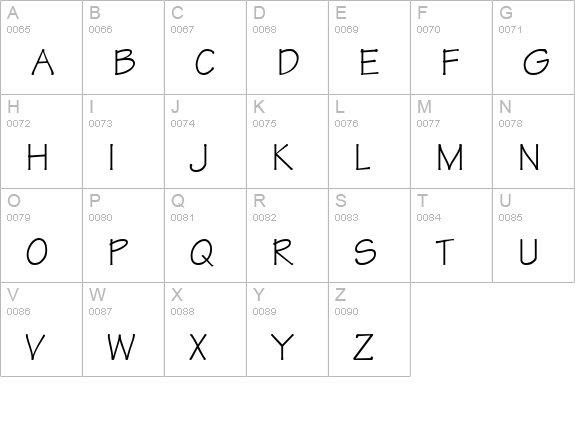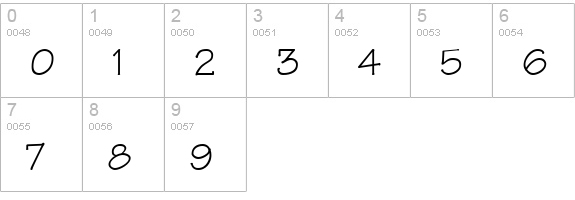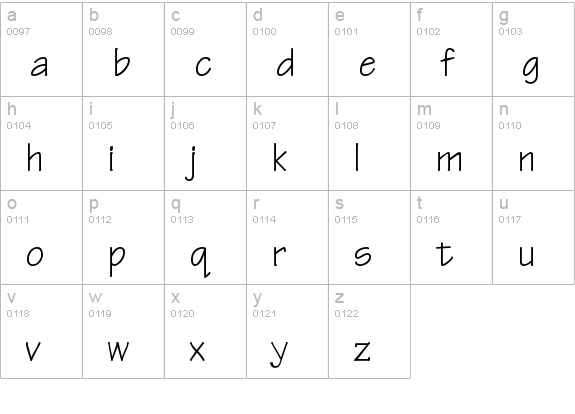
Manual SSi Font Details
Introducing Manual SSi, a strikingly elegant font that effortlessly captures the essence of timeless sophistication. With its clean lines and refined curves, this font exudes a sense of professionalism and style that is perfect for a variety of design projects. Manual SSi is meticulously crafted to ensure legibility and readability, making it an ideal choice for both print and digital media. Its versatile nature allows it to seamlessly adapt to any context, whether it be on a website, in a logo, or within a printed publication. What sets Manual SSi apart is not only its aesthetic appeal but also its accessibility. This font is freely available to download at FontsMarket.com, offering you the opportunity to enhance your design projects without any cost. By providing this font for free, we aim to empower designers and creatives to bring their visions to life, regardless of budget constraints. With a wide range of weights and styles, Manual SSi offers endless possibilities for creative expression. From the bold and impactful to the subtle and refined, this font allows you to effortlessly convey your message with clarity and confidence. So why wait? Experience the beauty of Manual SSi and elevate your designs to new heights. Download this remarkable font today at FontsMarket.com and unlock a world of design possibilities, all at no charge. Embrace the freedom to create with Manual SSi and let your creativity soar.